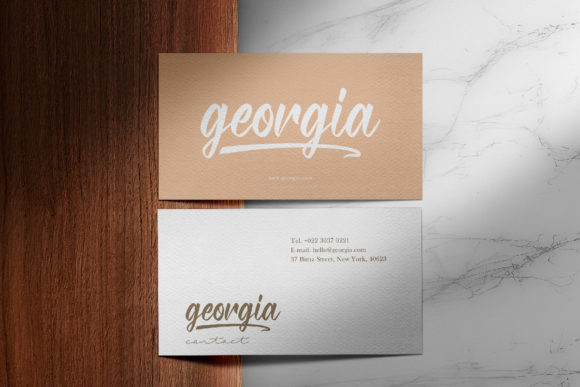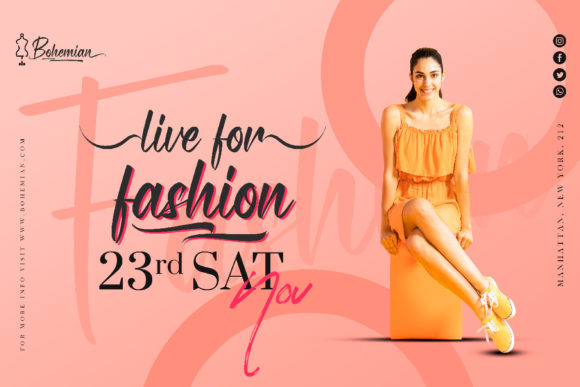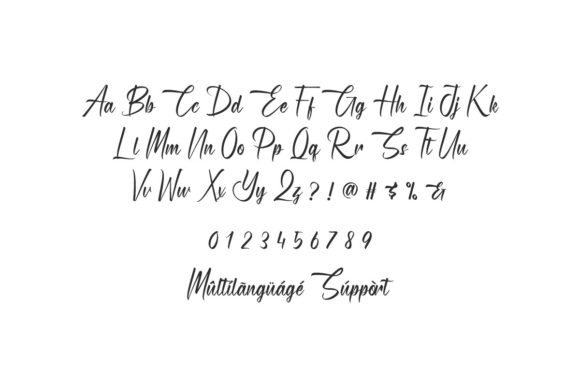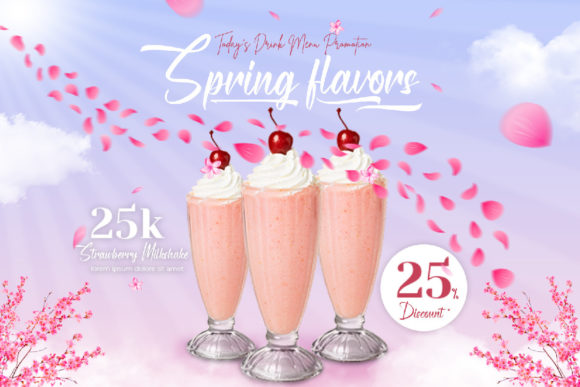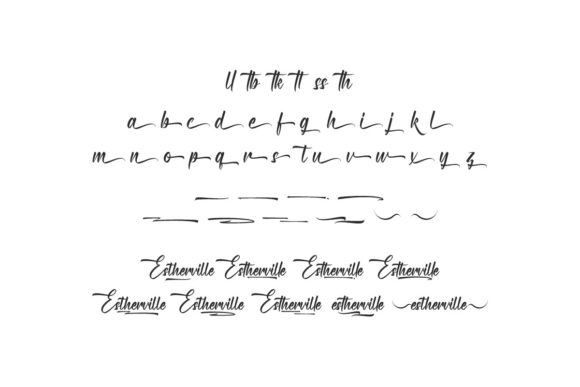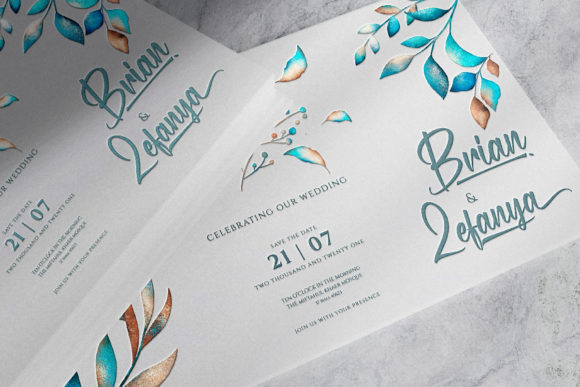
The Perfect Brushstroke: Unlocking the Beauty of the Estherville Font
Have you ever been stuck in a creative rut, struggling to find the perfect font to bring your vision to life? You’re not alone. We’ve all been there, scouring through font libraries, searching for that elusive combination of style and sophistication. But what if I told you there’s a font that could change everything?
Enter the Estherville Font, a delicate and elegant handwritten font that’s sure to capture your heart. With its unique and well-balanced letters, this font is a masterclass in design. Whether you’re a seasoned pro or just starting out, the Estherville Font is an invaluable addition to any designer’s toolkit.
- Unique Characteristics: The font features a unique blend of modern and vintage elements, with intricate details and subtle flair.
- X-Height: The x-height of Estherville Font is optimized for readability, making it an excellent choice for body text and large blocks of content.
Estherville Font Review
At first glance, the Estherville font is a charming and elegant script that seems perfect for any creative project. ✨ I love the flowing lines and the subtle flair at the end of each letter, giving it a unique and whimsical touch. ✨ The font’s versatility makes it suitable for both print and digital media, and its legibility is top-notch.
However, there are a few limitations to consider. ⚠️ For one, the font may not be as effective for text-heavy content, as the letters can become slightly blurred when condensed. ⚠️ Additionally, some users may find the font’s weight to be a bit too light, which can make it difficult to read in certain contexts.
Overall, I think the Estherville font is a great choice for designers looking to add a touch of sophistication and elegance to their projects. It’s perfect for headings, titles, and short passages of text where a more refined and decorative font is needed.
- Charming and elegant script
- Unique and whimsical touch
- Legibility is top-notch
- Perfect for print and digital media
Estherville Font: A Practical Application Guide
To use the Estherville Font in Adobe Photoshop or Illustrator, follow these steps: First, navigate to the “Type” tool and select the Estherville font from the font list. You can adjust the font size, color, and style to suit your design needs. Additionally, you can use the font’s unique features, such as ligatures and swashes, to add a touch of elegance to your design.
Getting the Most Out of Estherville Font
To get the most out of the Estherville Font, try combining it with other elegant fonts, such as Playfair Display or Great Vibes. You can also use the font’s unique features, such as ligatures and swashes, to add a touch of elegance to your design. Additionally, use the font to create a sense of sophistication and luxury in your designs.
The Estherville Font is ideal for use in wedding invitations, luxury branding, and high-end packaging designs. It’s also a great choice for use in editorial designs, such as magazines and newspapers, where a touch of elegance and sophistication is desired.
Alternatives to Estherville Font
Playfair Display is a luxurious, elegant serif font perfect for high-end branding, invitations, and magazine covers. It has a more refined and detailed appearance compared to Estherville Font, making it suitable for formal and sophisticated designs.
Comparison: While Estherville Font has a more rustic feel, Playfair Display is ideal for projects requiring an air of sophistication and refinement.
Lato is a modern sans-serif font ideal for digital interfaces, logos, and editorial content. It has a clean and minimalist appearance, making it an excellent choice for projects requiring a modern and professional look.
Comparison: Unlike Estherville Font, Lato is more suitable for digital applications and lacks the vintage feel of the original font.
What is the recommended line height for using Estherville Font in headings?
The recommended line height for using Estherville Font in headings is between 1.2 and 1.5 times the font size. This range provides a clear and visually appealing appearance, while also ensuring that the text is easy to read. However, feel free to adjust the line height according to your design requirements and user preferences.